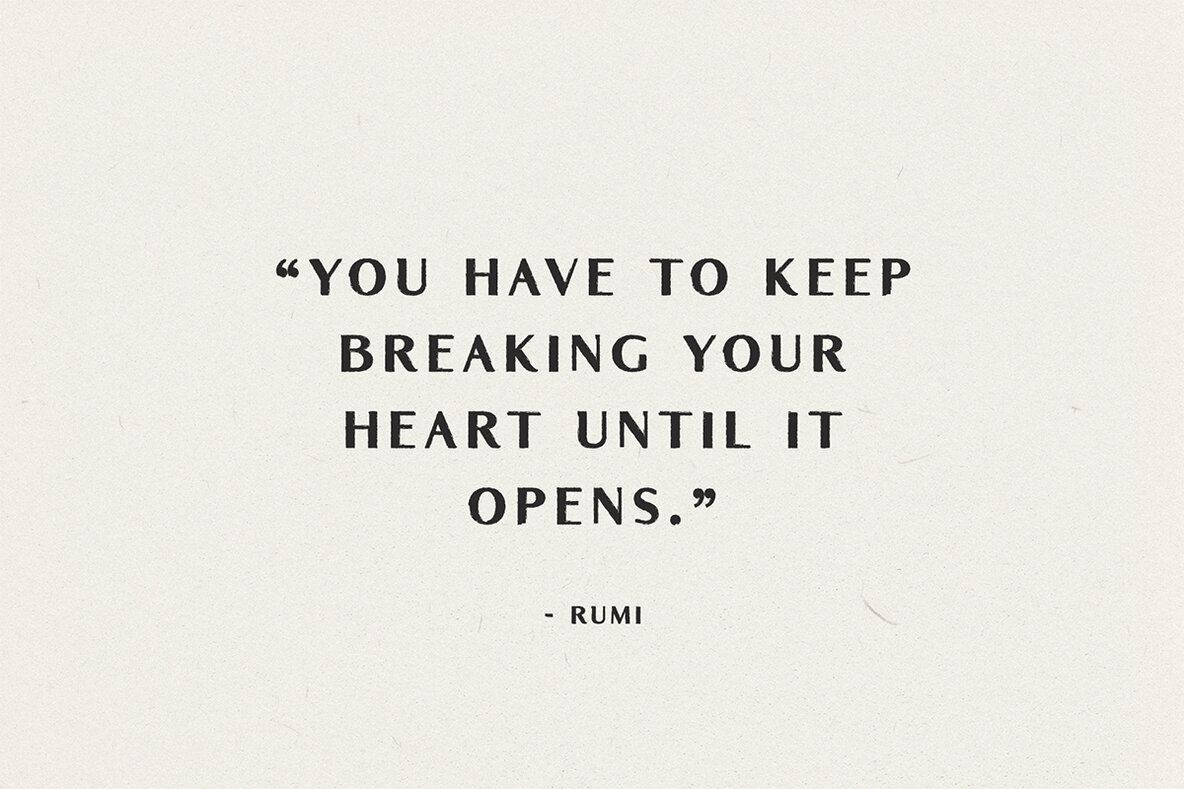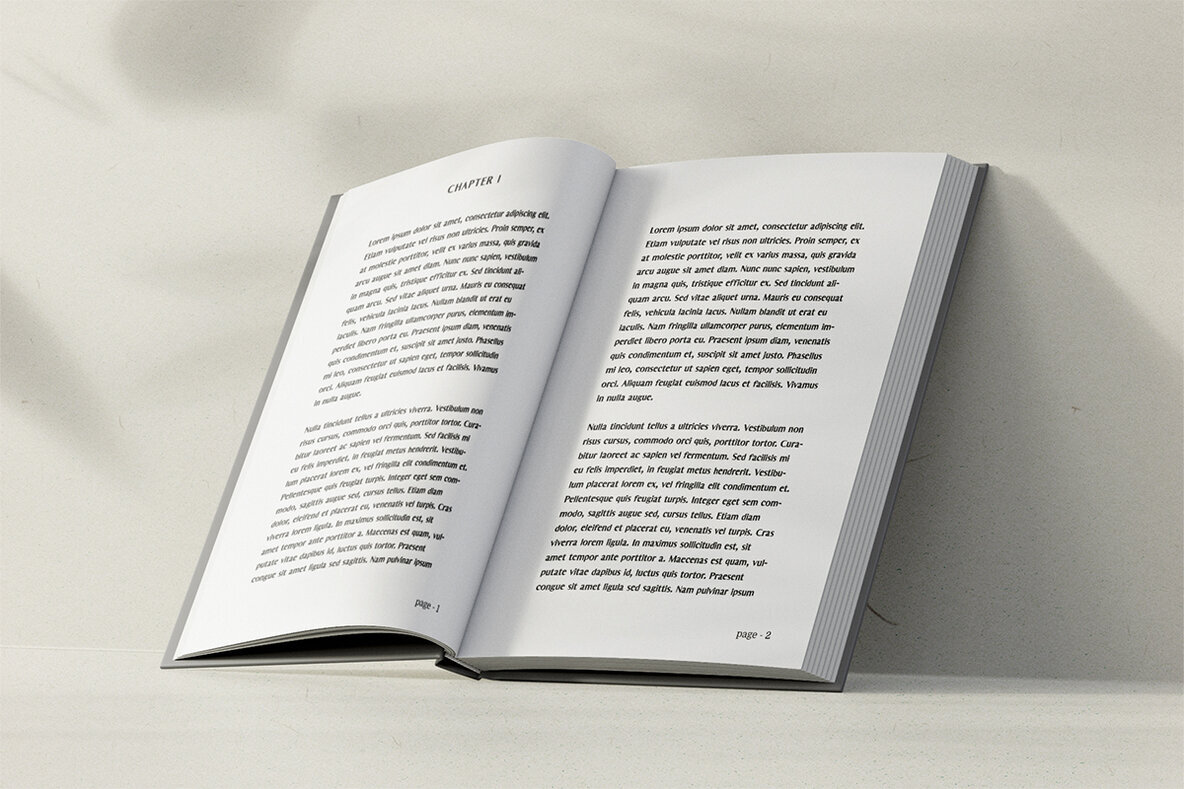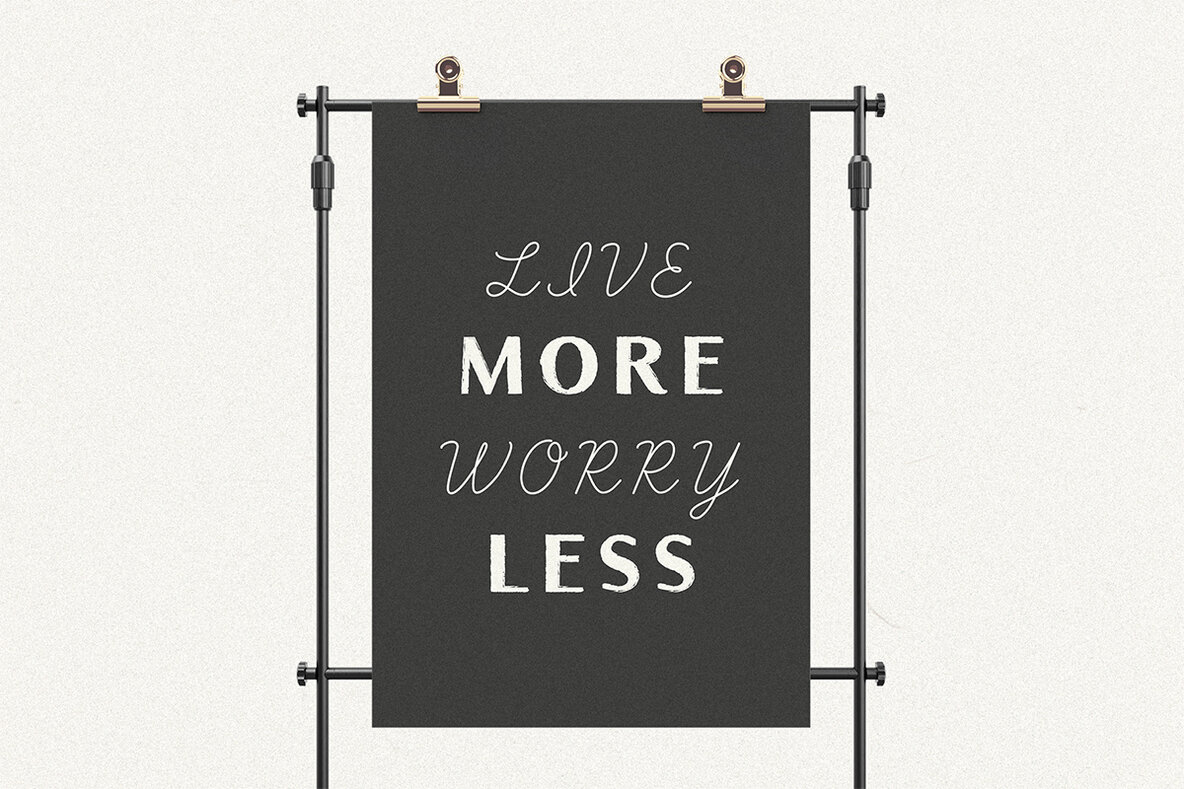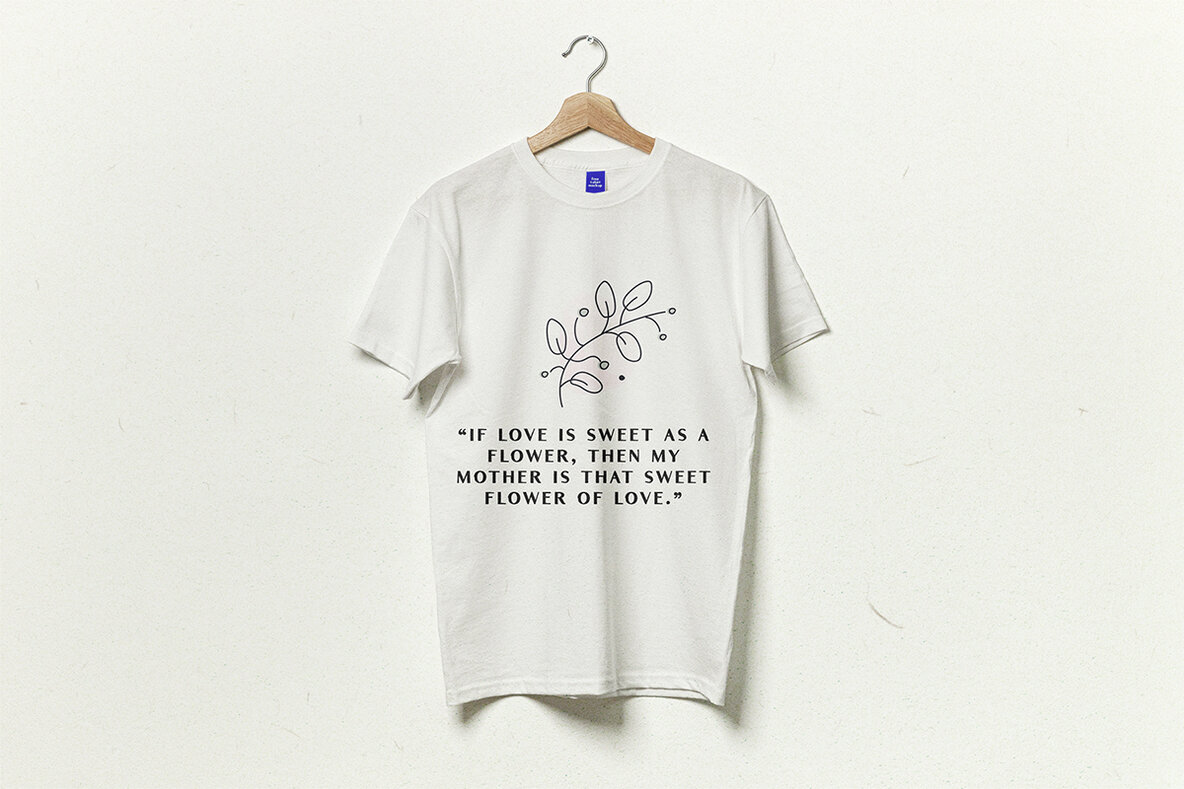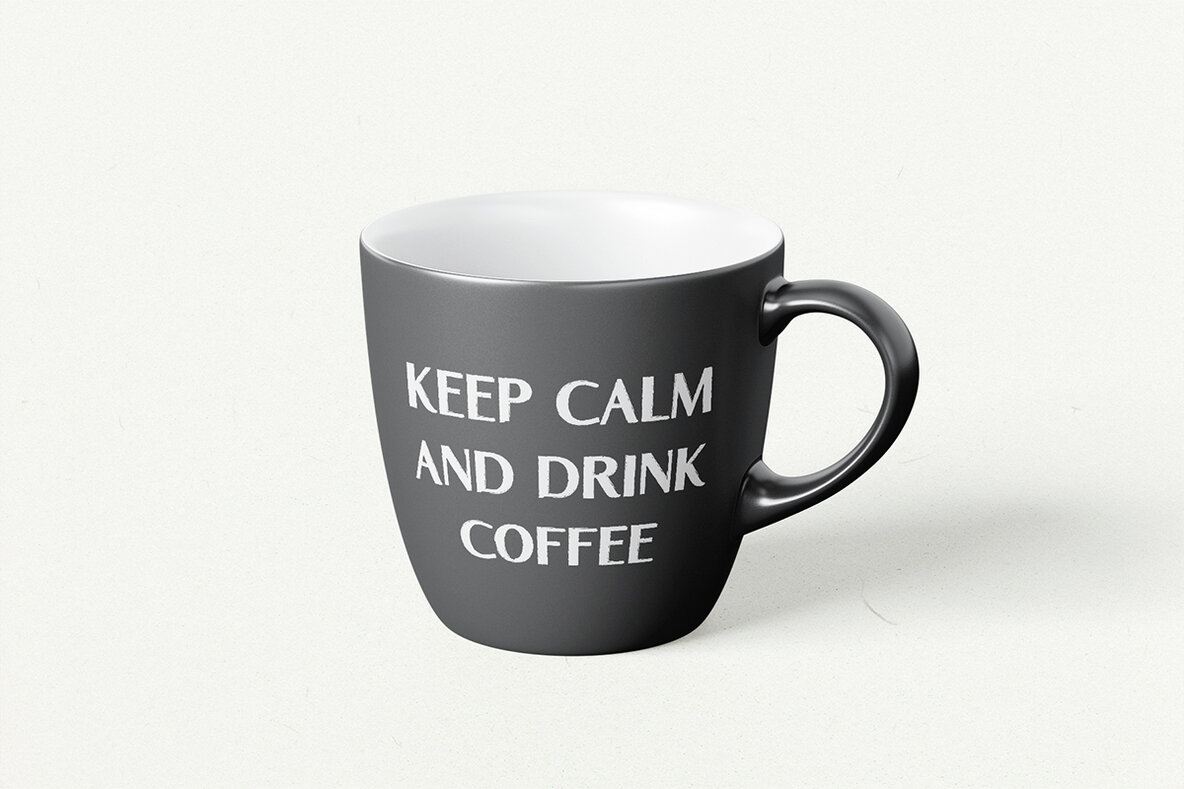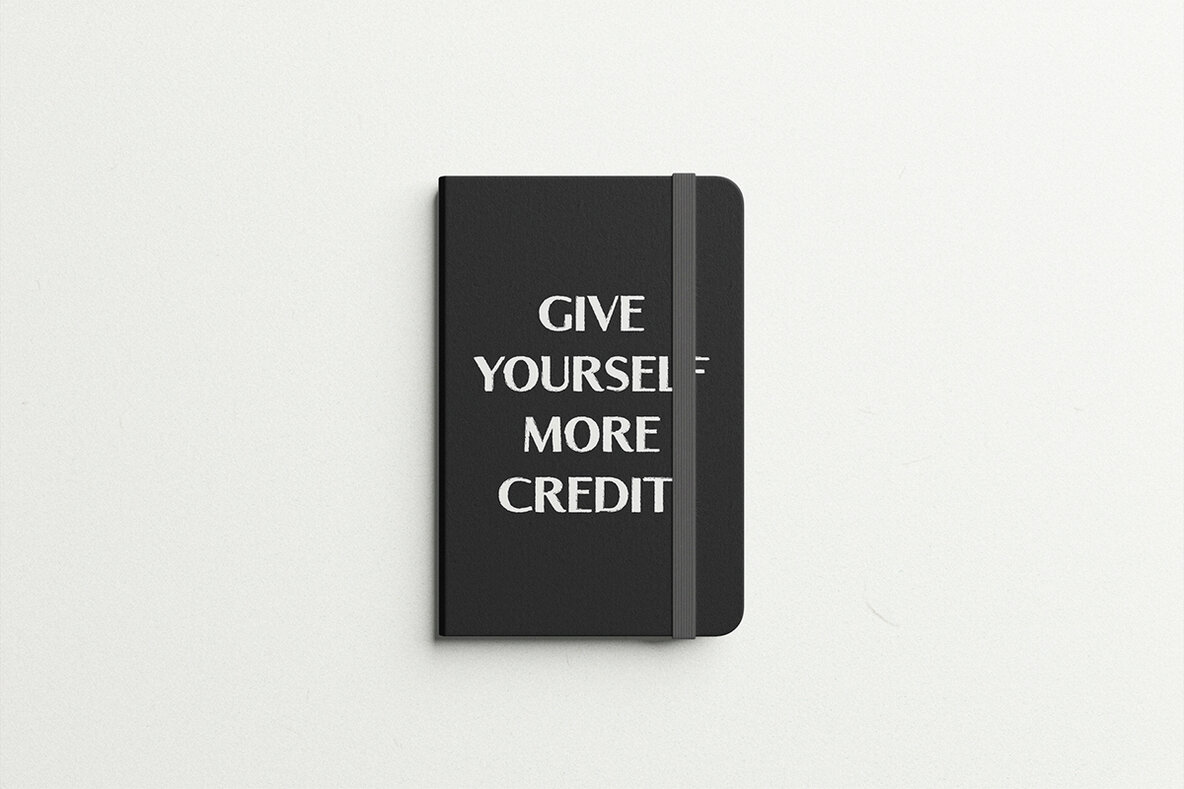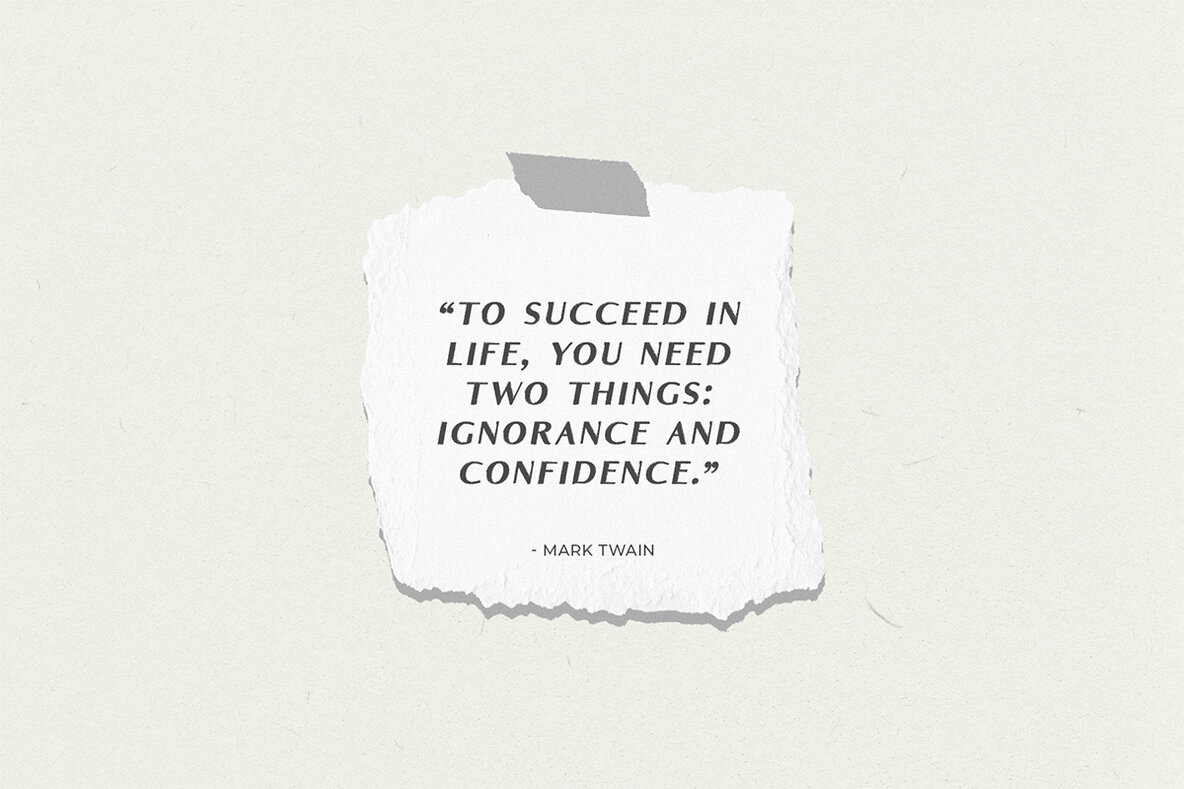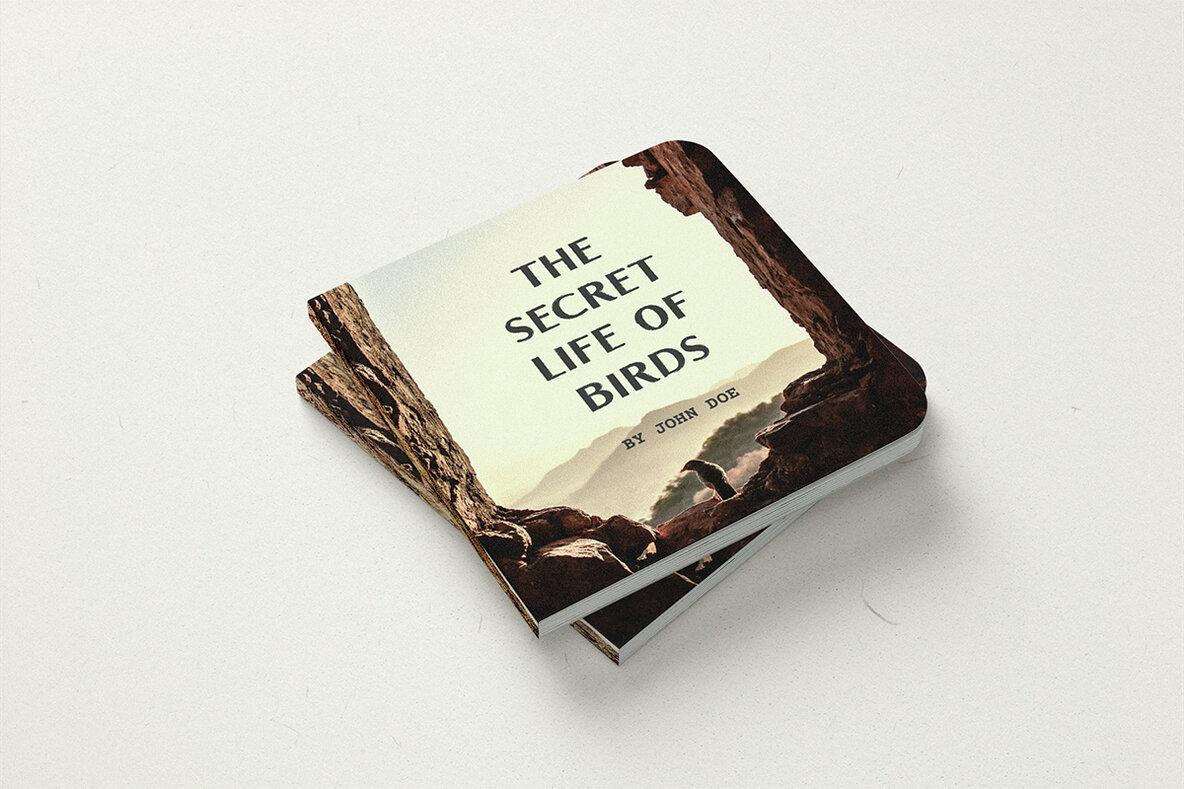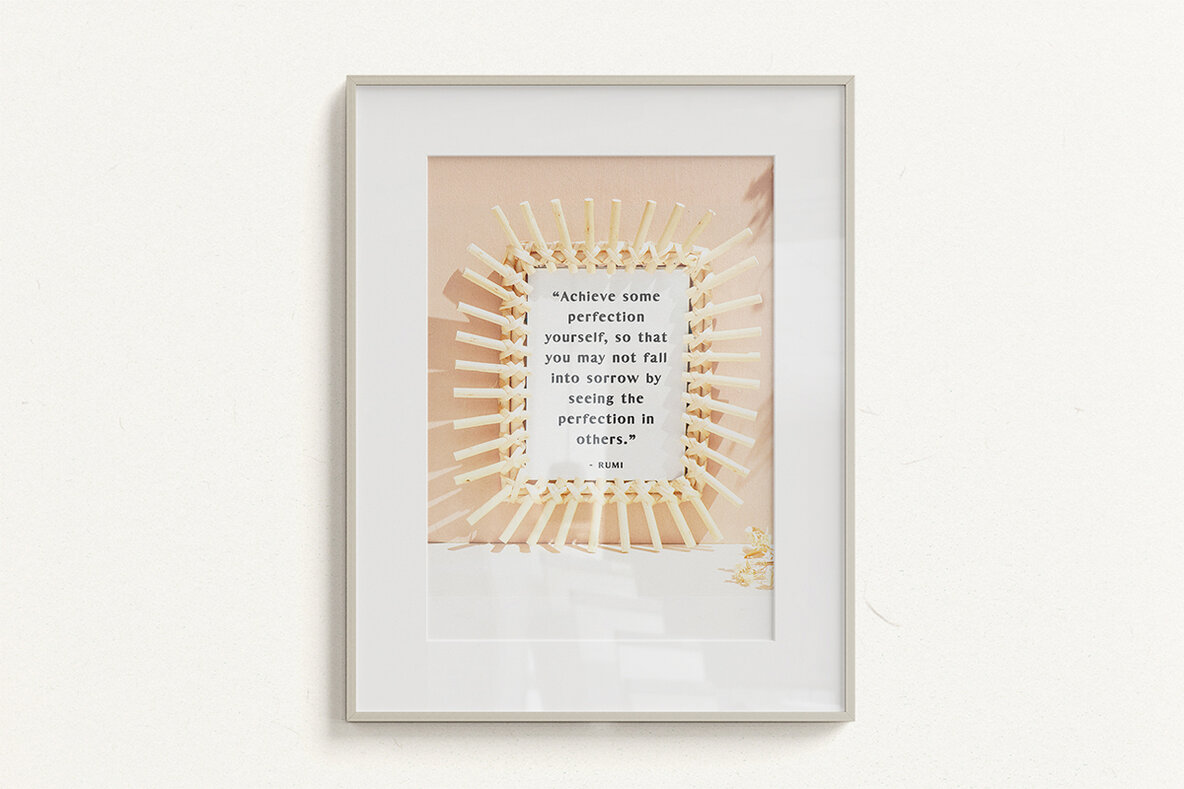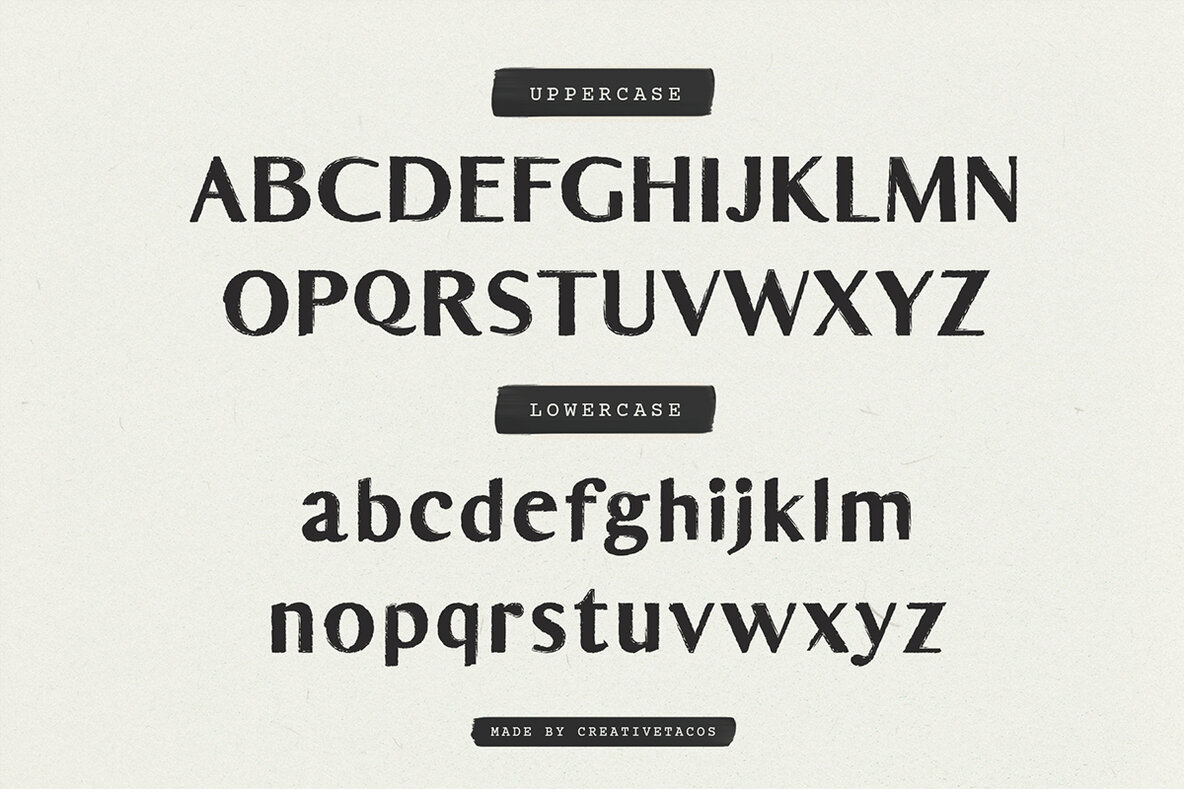
Meekeren Font
Meekeren Regular
Meekeren Sans Serif Font is a modern hand brush style font that combines versatility and elegance for a wide range of design projects. Featuring uppercase and lowercase letters, numbers, punctuation, and symbols, this font supports multiple languages, making it a comprehensive tool for designers. Whether you're working on packaging, presentations, logos, headlines, or web layouts, Meekeren provides a dynamic and stylish option to enhance your creative work.
Perfect for tasks like branding, quotes, titles, magazines, advertising, invitations, and book design, Meekeren Sans Serif blends functionality with aesthetic appeal. The font includes a full set of supported characters, encompassing a variety of special symbols and accented letters. Its attractive design and modern brush style make it ideal for creating impactful and visually engaging designs.